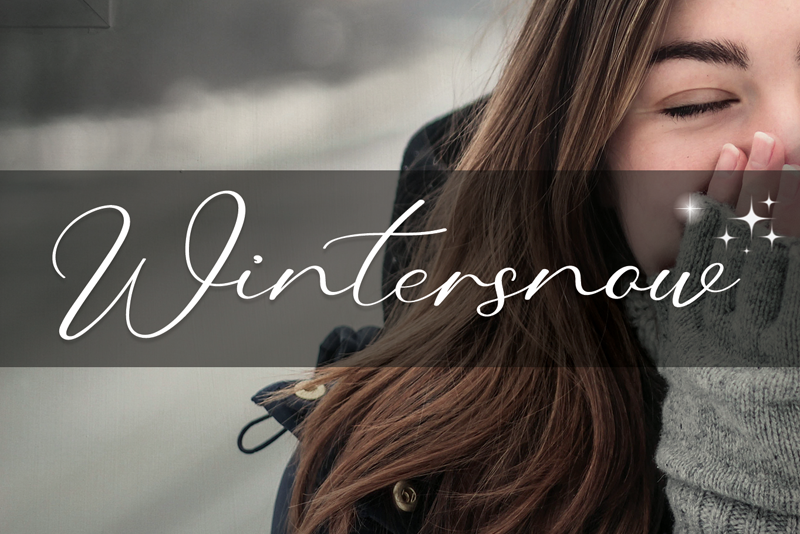
Font name: | Wintersnow |
Author: | Behind the Ink |
Wintersnow is a romantic and sweet calligraphy typeface with characters that dance along the baseline. It will add a luxury spark to any design project that you wish to create! Attention : Wintersnow handwriting Font is prohibited to use this font for commercial purposes or for profit without the permission of the author/admin, without being known to use this font without permission, will be subject to sanctions 5x the specified price. This font is used only for demos (Demo license) If you want to use this font for commercial use please contact email: luluksurotul123@gmail.com or click the link below: https://www.creativefabrica.com/product/wintersnow-3/ref/698281/ If you want to see more other fonts, please click: https://www.creativefabrica.com/designer/behind-the-ink/ref/698281/ Any donations are very appreciated. Paypal account for donation: https://www.paypal.com/paypalme/luluk783 thanks. |